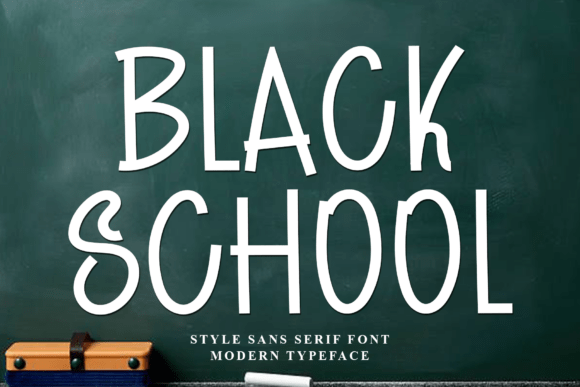
The Chalkboard Charm of Black School Font
Do you remember the thrill of walking into a brand new classroom, surrounded by the promise of knowledge and adventure? The smell of fresh chalk, the creak of old wooden desks, and the feeling of being part of a community that’s just beginning to grow. For many of us, those early school days are etched in our memories as a time of discovery and wonder.
That same sense of excitement and possibility is captured in the Black School Font, a modern sans serif typeface that evokes the charm of hand-drawn chalkboard lettering. With its tall, narrow characters and quirky shapes, this font is a designer’s dream come true for educational materials, classroom decor, and playful branding projects.
Black School Font Key Features
- Font Family: Black School is a sans-serif font family designed for educational purposes.
- Character Count: The font family includes a wide range of characters, including Latin, Cyrillic, and Greek alphabets, as well as various mathematical symbols.
- Resolution: Optimized for high-resolution displays, making it suitable for use in digital media, such as e-books, websites, and educational software.
- Unique Characteristics: The font features a clean, modern design with a distinctive “school” feel, making it perfect for educational materials, such as textbooks, worksheets, and presentations.
Black School Font Review
Overall, I think the Black School Font has some nice qualities, but it also has some limitations that might make it less suitable for certain projects. ✨
- The font’s bold and edgy aesthetic is great for creating a rebellious or avant-garde feel.
- The font’s clean lines and geometric shapes make it easy to read and recognize.
- The font’s versatility allows it to be used in a variety of contexts, from headlines to body text.
- ⚠️ The font may be too bold or overwhelming for certain projects, especially those that require a more subtle or refined look.
- ⚠️ The font’s geometric shapes can make it difficult to use in projects that require a more natural or organic feel.
- ⚠️ The font’s limited character set may make it less suitable for projects that require a wide range of characters or languages.
I think the Black School Font is a great choice for projects that require a bold, edgy look. However, it may not be the best choice for projects that require a more subtle or refined aesthetic. With its clean lines and geometric shapes, it’s a great font for creating a modern or futuristic feel.
Getting the Most Out of Black School Font
To get the most out of Black School Font, use it to create bold, eye-catching headings. This font is perfect for adding a touch of edginess to your designs. Experiment with different font sizes, colors, and styles to create a unique look.
Black School Font is commonly used in:
– Bold headings and titles
– Edgy or urban-themed designs
– Graffiti or street art-inspired designs
– Modern and minimalist designs
Alternatives to Black School Font
Montserrat is a modern sans-serif font that is perfect for digital designs. It is highly legible and versatile, making it suitable for a wide range of applications, from body text to headings. Montserrat is more condensed than Black School Font, making it ideal for tight spaces or small screens.
Comparison: Montserrat is more modern and sleek, while Black School Font has a more traditional and classic feel.
Avenir is a geometric sans-serif font that is highly legible and versatile. It is perfect for designs that require a clean and modern look. Avenir is similar to Black School Font in terms of its classic feel, but it has a more geometric and futuristic twist.
Comparison: Avenir is more geometric and modern than Black School Font, which has a more traditional feel.
Merriweather is a classic serif font that is perfect for designs that require a traditional and elegant look. It is highly legible and versatile, making it suitable for a wide range of applications, from body text to headings. Merriweather is more formal than Black School Font, making it ideal for academic or professional designs.